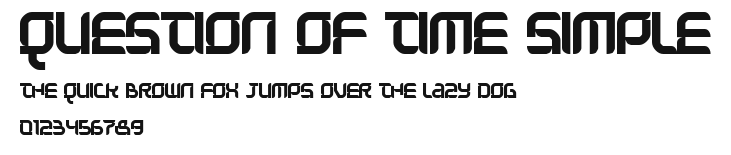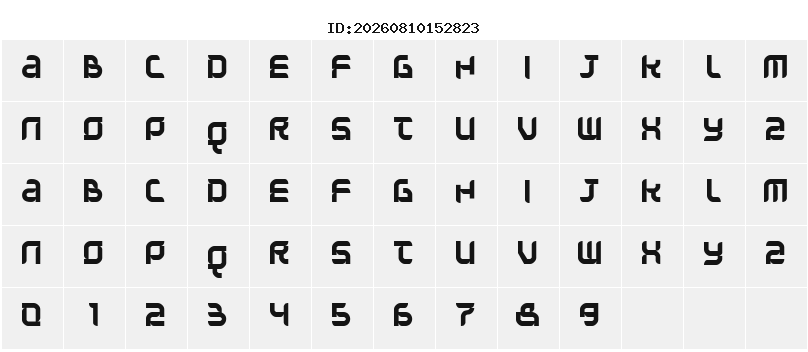
• Font Name: Question of time simple
• Font ID: Question of time [simple]
• Full Font Name: Question of time simple
Question of time simple.ttf is a modern, elegant sans-serif font designed for ultimate readability and visual harmony. Perfect for branding, headlines, web design, and print materials.